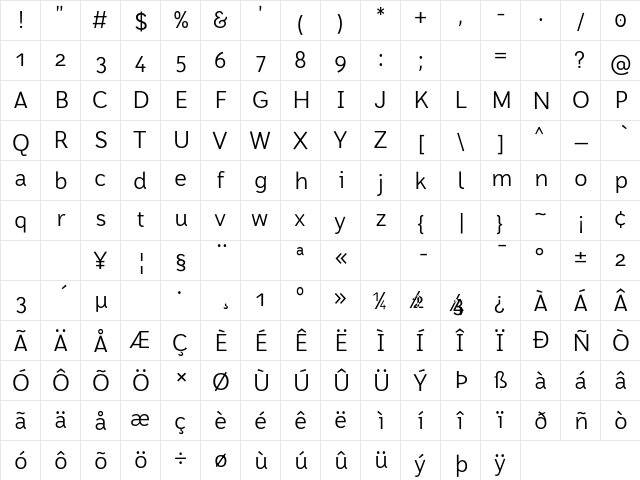
Font_Rodona Regular
| Designer | Jordi Miquel Sempere i Vicedo |
Design Context for Font_Rodona Typeface
Font_Rodona takes a measured approach to typography — its balanced proportions and neutral character make it a reliable workhorse for both digital and print work.